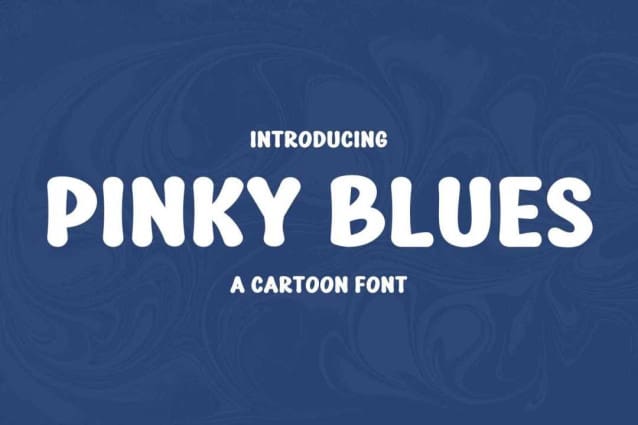
Pinky Blues Font
Pinky Blues Font is a display font in thick weights and expresses feminine and fun nuances at the same time. It tends to be round in shape with low contrasts. In addition, its line details are clean with the same letter proportions.